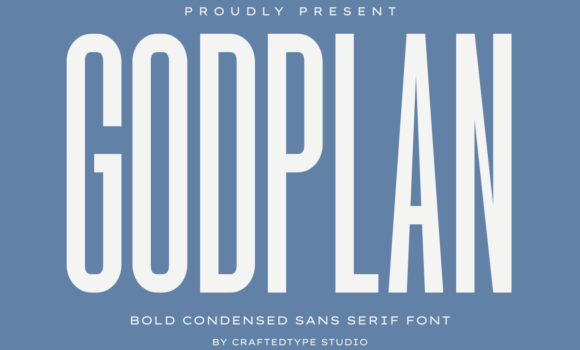
godplan
Godplan Font – Free Download Introduction to Godplan Font Godplan is a bold and commanding condensed sans serif font designed for those who want their message to be seen and felt. 📸 Preview Gallery 5 images 📌 Product Name Godplan